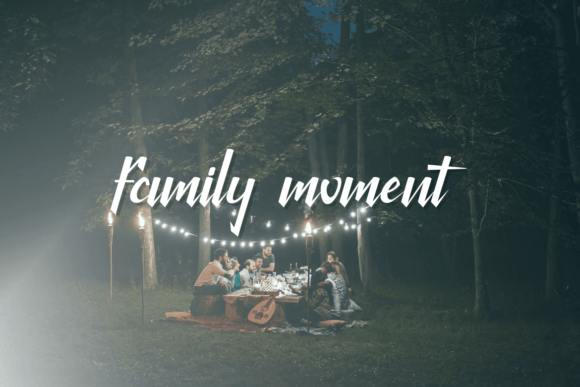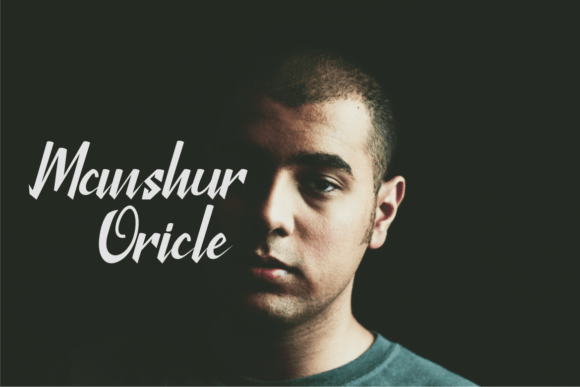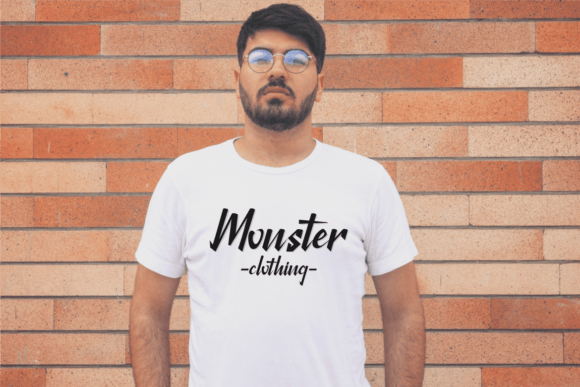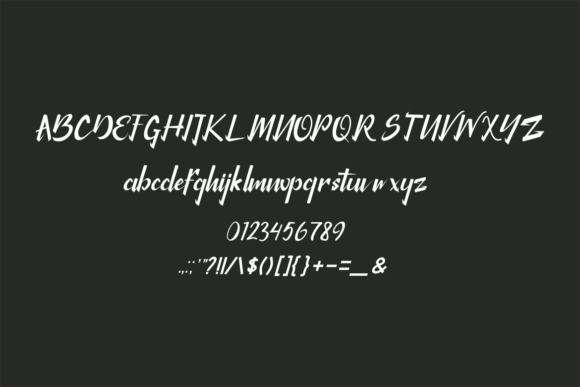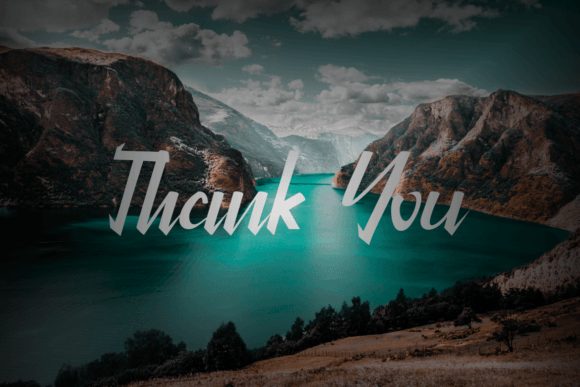
Gaterista Font: The Ultimate Choice for Bold and Authentic Designs
In the world of typography, a font can make or break a design. For designers and crafters looking for a bold and authentic handwritten font, Gaterista is an excellent choice. This versatile font is perfect for a wide range of branding projects, from logos and t-shirt printing to esports and more. In this article, we’ll dive into the features and benefits of Gaterista Font and explore how it can elevate your designs.
What is Gaterista Font?
Gaterista Font is a bold and authentic handwritten font designed to make a statement. Its unique and stylish lettering makes it perfect for designers who want to add a personal touch to their projects. The font’s bold and confident appearance ensures that your designs will stand out in a crowded market.
Key Features of Gaterista Font
- Bold and Authentic: Gaterista Font boasts a bold and authentic handwritten style that’s perfect for making a statement.
- Versatile: This font is suitable for a wide range of branding projects, from logos and t-shirt printing to esports and more.
- Easy to Read: Despite its bold appearance, Gaterista Font is easy to read, making it perfect for headlines, titles, and short paragraphs.
- Unique and Stylish: The font’s unique and stylish lettering ensures that your designs will stand out from the crowd.
Benefits of Using Gaterista Font
So, why choose Gaterista Font for your next design project? Here are just a few benefits of using this versatile font:
- Adds a Personal Touch: Gaterista Font’s handwritten style adds a personal touch to your designs, making them more relatable and engaging.
- Perfect for Branding: The font’s bold and confident appearance makes it perfect for branding projects, from logos to business cards.
- Great for Headlines and Titles: Gaterista Font is ideal for headlines and titles, adding a touch of style and sophistication to your designs.
- Easy to Pair with Other Fonts: The font’s unique style makes it easy to pair with other fonts, creating a cohesive and visually appealing design.
Use Cases for Gaterista Font
Gaterista Font is a versatile font that can be used in a wide range of design projects. Here are just a few use cases:
- Logo Design: Gaterista Font is perfect for logo design, adding a bold and confident touch to your brand’s identity.
- T-Shirt Printing: The font’s bold and stylish appearance makes it ideal for t-shirt printing, creating eye-catching designs that will stand out.
- Esports: Gaterista Font is a great choice for esports designs, adding a touch of style and sophistication to your team’s branding.
- Posters and Flyers: The font’s bold and easy-to-read appearance makes it perfect for posters and flyers, grabbing the attention of your audience.
In conclusion, Gaterista Font is a bold and authentic handwritten font that’s perfect for designers and crafters looking to add a personal touch to their designs. Its versatile nature makes it suitable for a wide range of branding projects, from logos and t-shirt printing to esports and more. With its unique and stylish lettering, Gaterista Font is sure to elevate your designs and make them stand out in a crowded market.